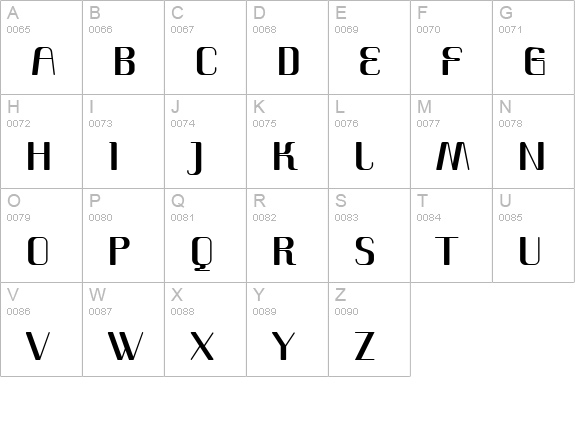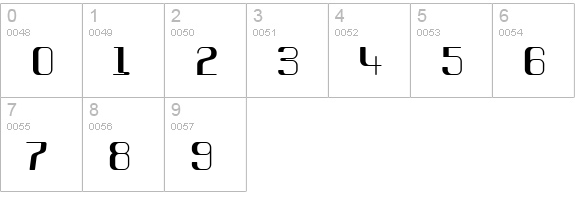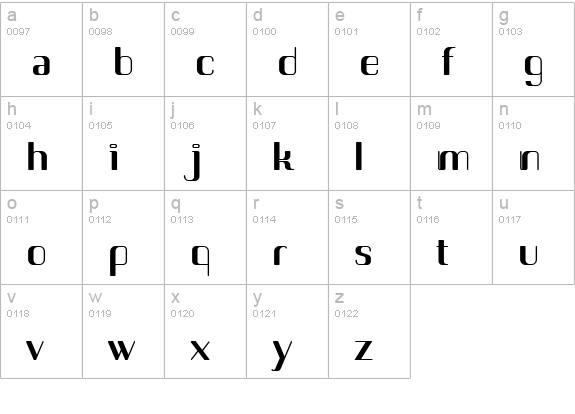
RomeroBold Font Details
RomeroBold is a striking and bold typeface that commands attention with its strong and impactful presence. With its modern and sleek design, this font exudes a sense of confidence and sophistication. The thick strokes and sharp edges of RomeroBold make it perfect for headlines, posters, and other design projects that require a bold statement. What's even better is that RomeroBold is available for free download at FontsMarket.com. You can easily access this versatile font and elevate your designs without any cost. So, why wait? Download RomeroBold now and add a touch of boldness to your creative projects!